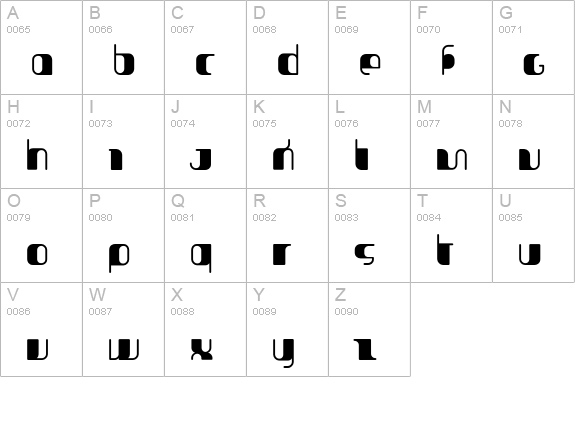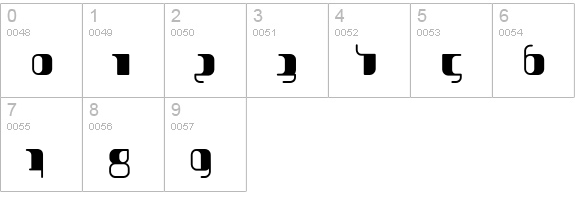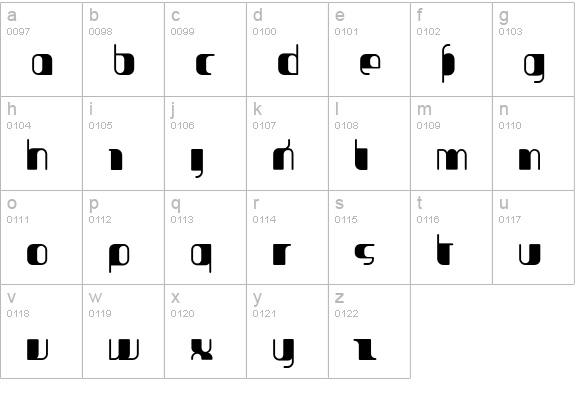
Introducing Jakone-CondensedBold, a captivating and visually stunning font that will elevate your designs to new heights. With its bold and condensed letterforms, this typeface exudes confidence and commands attention. Every curve and line of Jakone-CondensedBold has been meticulously crafted to perfection, resulting in a font that is both striking and highly legible. Its strong presence on the page ensures that your message will be delivered with impact and clarity. This versatile font is perfectly suited for a wide range of design projects, from eye-catching headlines to sleek logos and everything in between. Whether you're working on a print advertisement, a website, or a branding project, Jakone-CondensedBold will effortlessly add a touch of sophistication and professionalism. What makes Jakone-CondensedBold even more remarkable is that it is available for free. Yes, you read that right - this extraordinary font can be downloaded at absolutely no cost from FontsMarket.com. This means that you can access and utilize this exceptional typeface without breaking the bank. So why wait? Elevate your designs and make a lasting impression with Jakone-CondensedBold. Download this remarkable font today for free at FontsMarket.com and unlock a world of creative possibilities.